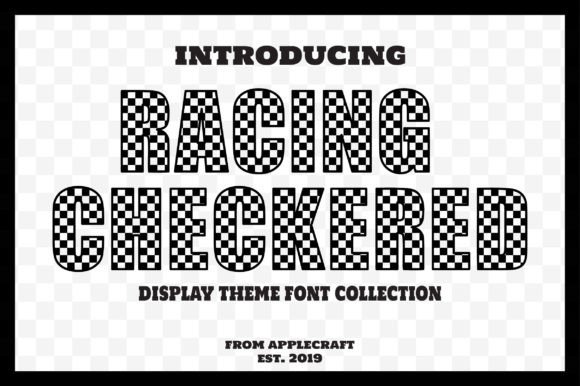
Looking for the perfect font to add a touch of speed and excitement to your designs? Look no further than Racing Checkered Font, the ultimate choice for racing enthusiasts and designers alike. Created by the talented team at Apple Craft, this decorative font is guaranteed to make your designs stand out from the crowd.
With its bold and eye-catching style, Racing Checkered Font is the ideal choice for all your racing-themed projects. Whether you're working on quotes, shirt designs, websites, branding, children's designs, SVG designs, blogs, logos, invitations, or anything else that needs a burst of energy, this font has got you covered.
One of the standout features of Racing Checkered Font is its versatility. It seamlessly blends style and legibility, making it perfect for both small and large-scale projects. The capital and lowercase letters are identical, ensuring a consistent and unified look throughout your designs.
But what sets Racing Checkered Font apart from the competition? Its ability to evoke emotions and capture the essence of speed. With every stroke, this font exudes a sense of adrenaline, pushing your designs to new heights. It's like a race car for your typography, injecting a dose of excitement into every word.
Imagine the impact of using Racing Checkered Font on your racing-themed website. Your visitors will be instantly drawn to the captivating and dynamic nature of the font, creating a memorable user experience. It's a surefire way to make a lasting impression and leave your competitors in the dust.